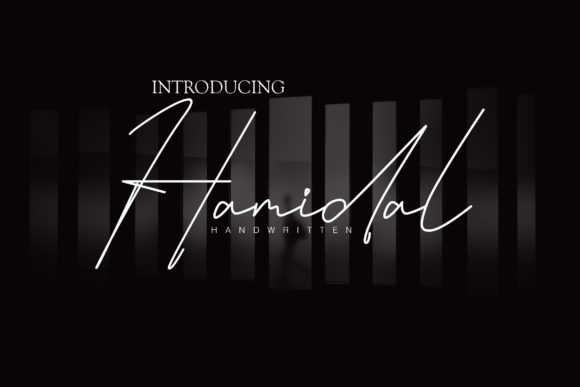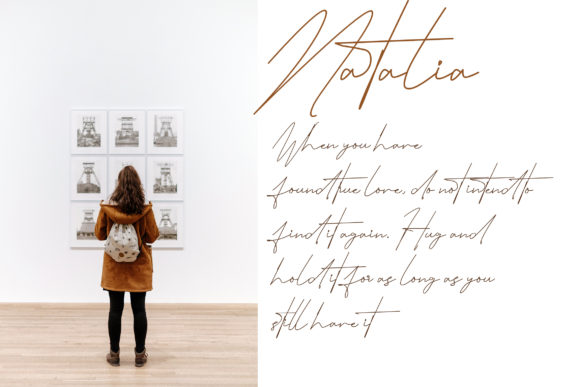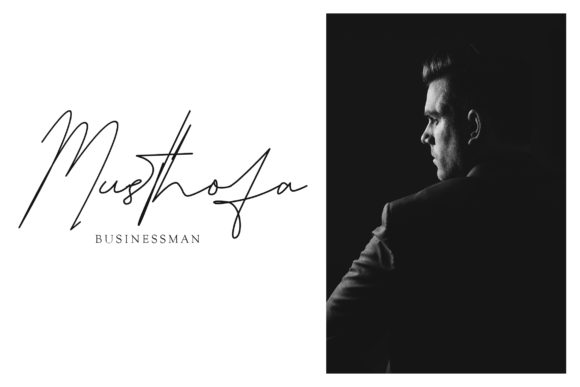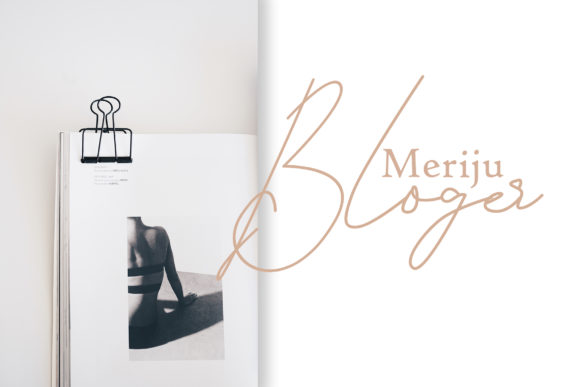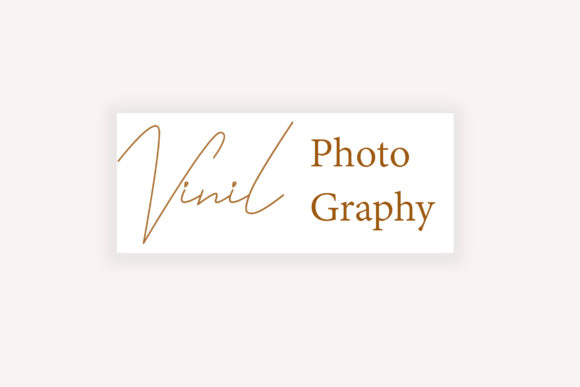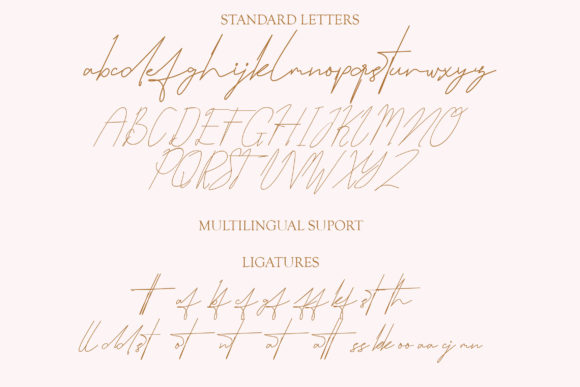
HomeScript FontsHamidal Font Script Fonts Hamidal Font FacebookXPinterestWhatsApp Hamidal Font Poster 2 Hamidal Font Poster 3 Hamidal Font Poster 4 Hamidal Font Poster 5 Hamidal Font Poster 6 About Hamidal Font Hamidal is a unicorn amongst fonts: Beautiful, and truly unique. Use it to add a bold spark to any design idea! DOWNLOAD NOW People also explored Cooling Font Scotlandia Font Hanaluna Font Billy Coaster Font Malvinas Duo Font The Bigger the Better Font Preteoria Font Separate Font Makagifa Font 363 0 TagsHamidal Font Previous articleJosephine FontNext articleWinter Brother Font LEAVE A REPLY Cancel reply Comment: Please enter your comment! Name:* Please enter your name here Email:* You have entered an incorrect email address! Please enter your email address here Website: Save my name, email, and website in this browser for the next time I comment. Personal Use Free Bosque Font Personal Use Free Read more about this font Travelling Free Brush Personal Use Free Read more about this font Edo SZ Personal Use Free Read more about this font Rolling Door Personal Use Free Read more about this font BLOG Best Fonts for YouTube Videos: Make Your Thumbnails Stand Out Best Fonts for YouTube Videos: Make Your Thumbnails Stand Out Choosing the right font can make a massive difference in how your YouTube videos perform.... How to Install and Use Fonts on Windows, macOS, and Web Projects 5 Fonts That Will Dominate Design Trends in 2026 Elegant Wedding Invitation Fonts – Handwritten & Script Fonts